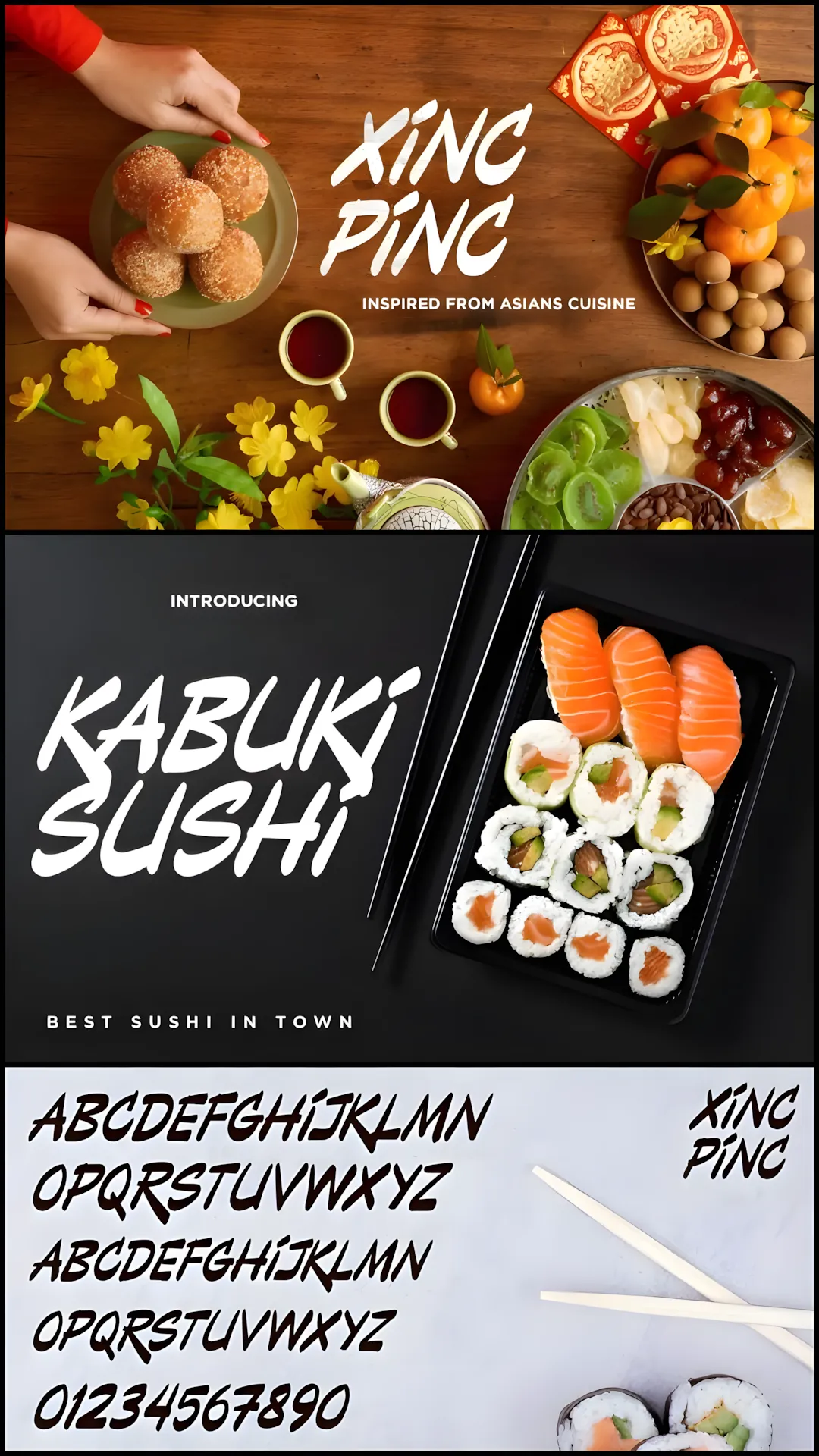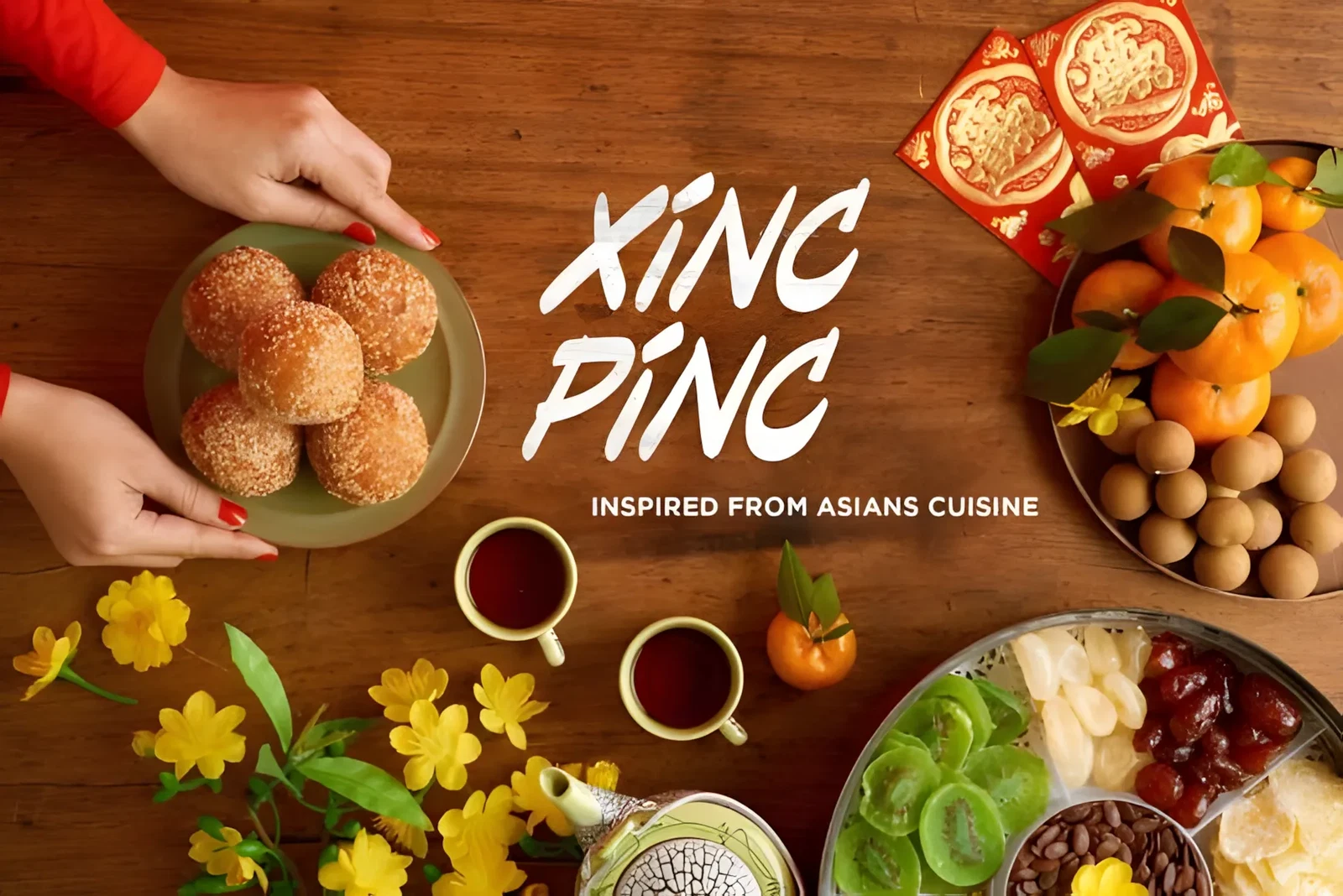
Typography can transform any design from ordinary to memorable. When looking for a bold and expressive typeface that brings cultural flair and artistic personality, Xincpinc Font stands out as a creative choice. Crafted with striking brush-style influence, this decorative font is ideal for designers who want visuals with energy and character — whether for logos, menus, posters, or branding projects.
This font feels right at home in designs inspired by Asian cuisine, festive celebrations, and creative branding that needs a unique voice. It blends artistic inspiration with practical design needs, making Xincpinc a versatile decorative typeface for many creative applications.
What Is Xincpinc Font?
Xincpinc Font is a decorative script and display typeface created to bring a lively and dynamic feel to design projects. It draws inspiration from Asian cultural aesthetics and traditional brush techniques, giving the font a hand-crafted and expressive quality with bold shapes and smooth motion.
Designed primarily as a display font, it’s most effective for short text elements such as logos, headlines, menu titles, posters, and packaging. Its strong visual presence makes it ideal for projects where bold typography is the main graphic element.
Visual Style and Unique Characteristics
What makes Xincpinc Font visually compelling is its bold brush-inspired strokes and energetic rhythm. Each character conveys a sense of movement and fluidity, making the typeface feel alive on the page.
While many decorative fonts lean toward static or overly ornamental looks, Xincpinc embraces a more organic and dynamic feel — perfect for projects that benefit from a unique handed-drawn style. Compared to traditional script fonts, Xincpinc stands out with its cultural resonance and artistic edge, blending script sensibility with modern decorative flair.
Common Uses and Design Applications
Logo and Brand Identity
Xincpinc Font works especially well for logo design and brand identity projects that want to convey creativity, cultural inspiration, or dining experiences. It’s a strong choice for restaurant branding, food festivals, and lifestyle brands looking for a distinctive typeface that communicates energy and personality.
By using Xincpinc for headlines and brand marks, designers can achieve visual impact without the need for elaborate graphics.
Restaurant Menus and Food Packaging
Due to its brush-inspired aesthetic and cultural feel, Xincpinc fits beautifully in restaurant menus and food packaging design. It evokes the look of hand-painted signage and traditional culinary branding, making it particularly suitable for Asian cuisine concepts, street food branding, and menu sections where style meets readability.
Whether on a digital menu or printed tabletop material, the font enhances the dining brand experience.
Posters, Events, and Social Media Graphics
Bold decorative typography like Xincpinc is ideal for posters, promotional flyers, and social media graphics. Its dynamic style helps attract attention and adds a creative vibe to event titles, headers, and campaign visuals.
For social media, the font scales well in headlines and featured text, helping designs stand out on feeds and digital platforms.
Packaging and Promotions
Xincpinc Font also shines in packaging and promotional materials beyond menus — such as product labels, themed gift boxes, cultural celebration graphics, and seasonal promos. Its expressive shapes can communicate excitement and cultural richness, enhancing the overall visual narrative of a product or campaign.
Benefits of Choosing Xincpinc Font
- Expressive and dynamic decorative style — brings designs to life.
- Great for logos, titles, and display typography — strong visual presence.
- Cultural aesthetic suited for Asian cuisine and celebration themes.
- Ideal for branding, menus, posters, and packaging — versatile use cases.
Xincpinc Font is a bold, decorative typeface designed to make a strong visual statement. Its brush-inspired, dynamic letterforms bring cultural character and expressive energy to design work, making it a versatile pick for logos, menus, posters, and branding projects.
Whether creating a restaurant menu, a bold logo, or eye-catching promotional material, Xincpinc Font adds personality and flair to creative design.